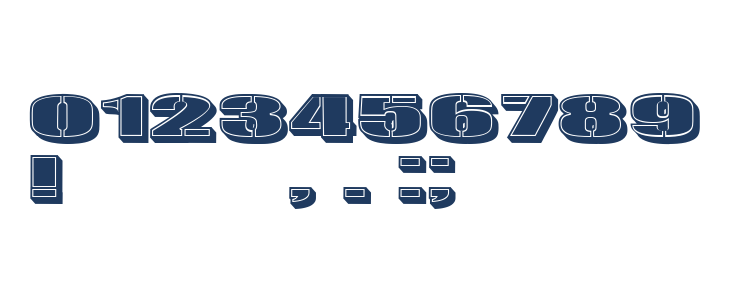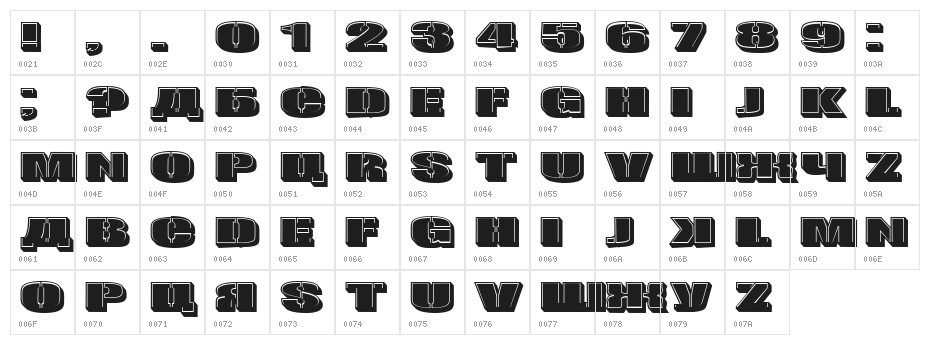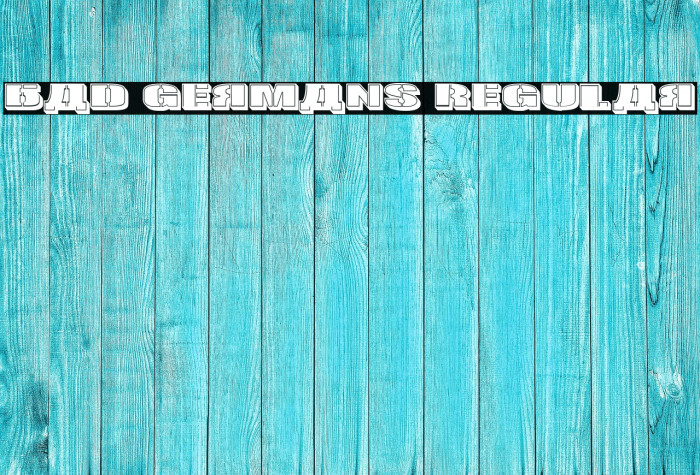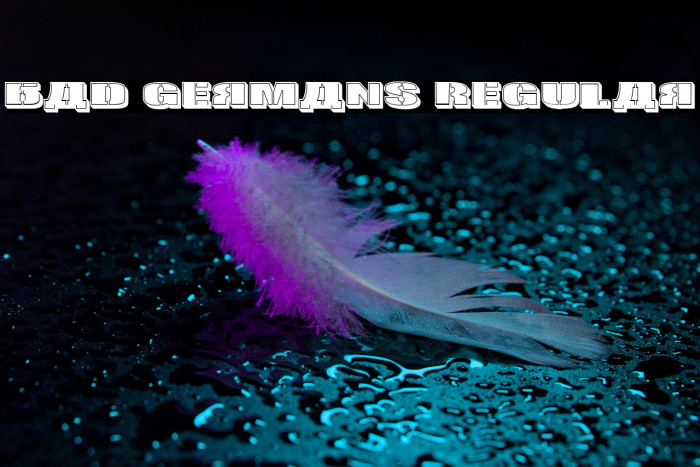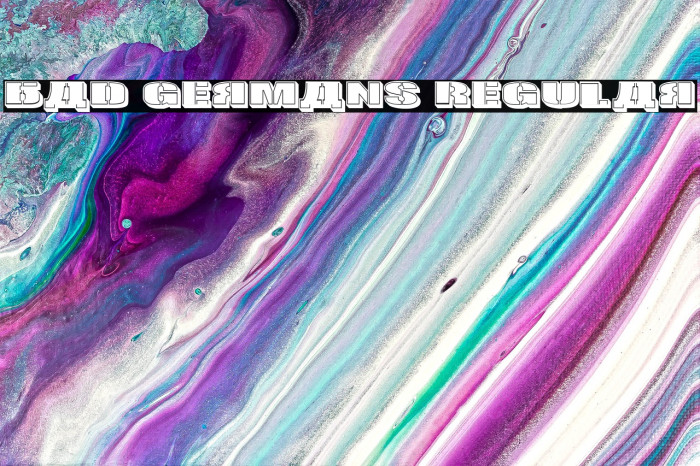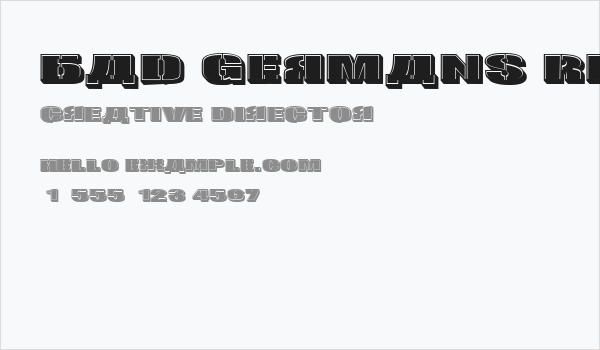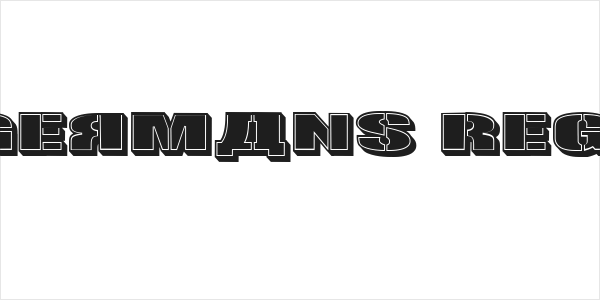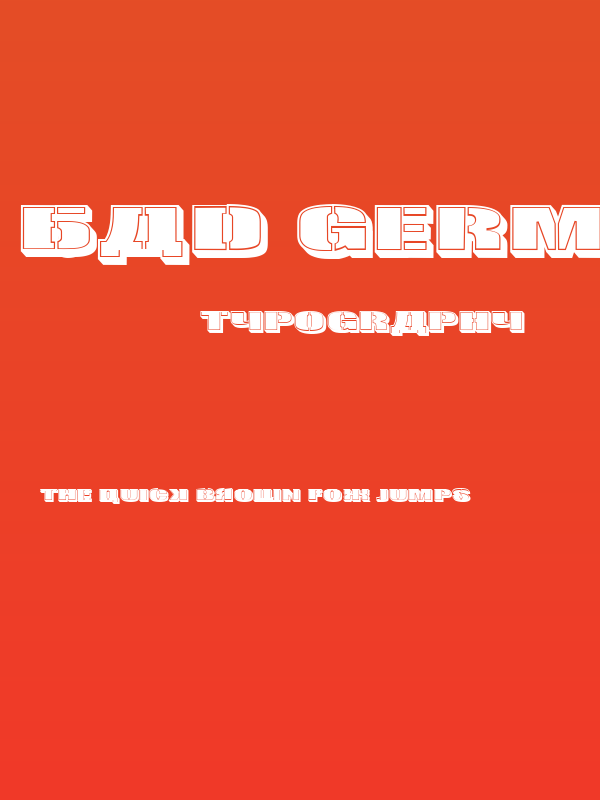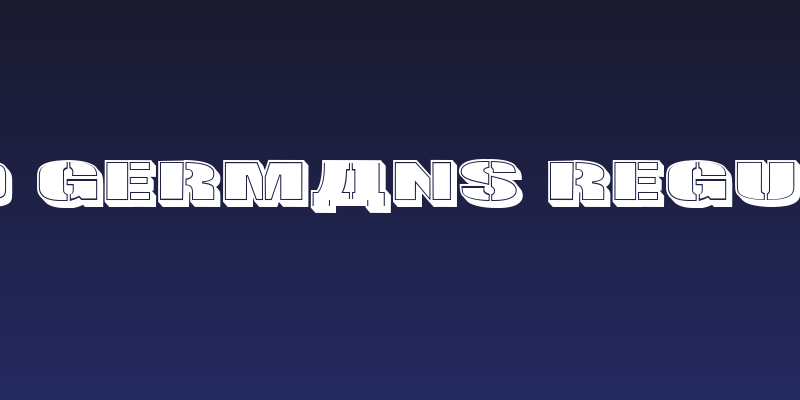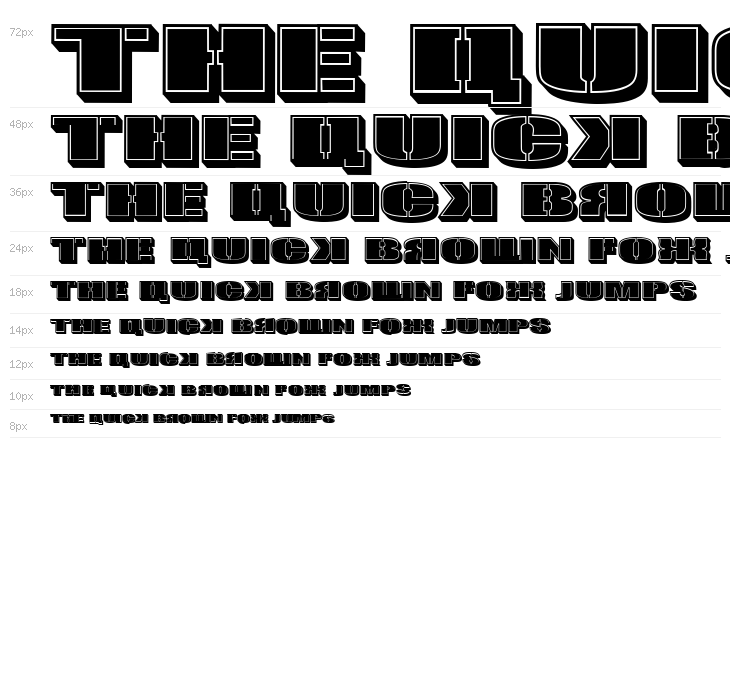
Bad Germans Regular Font
Bad Germans Regular Description
This font features a bold and robust design with a strong presence. The characters are blocky and have a three-dimensional effect, giving them a striking appearance. The edges are slightly rounded, adding a touch of softness to the otherwise solid structure. The font is highly legible and commands attention, making it suitable for impactful designs. The numbers and special characters maintain the same bold style, ensuring consistency throughout. This font is ideal for projects that require a strong visual impact.
| Proposed Projects | Ideal for posters, headlines, branding, and any design requiring a bold statement. |